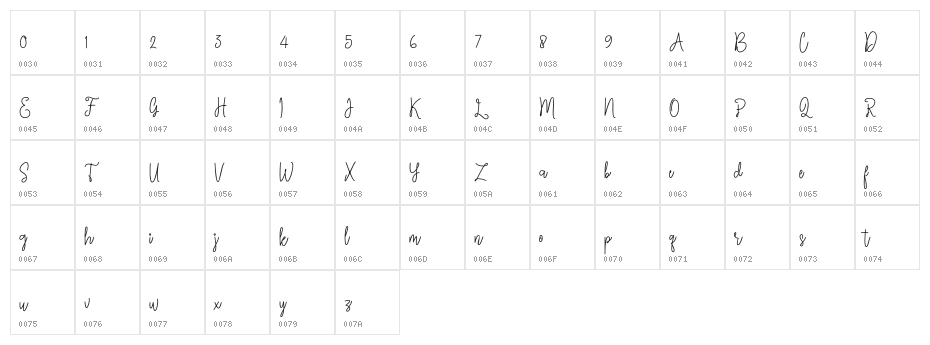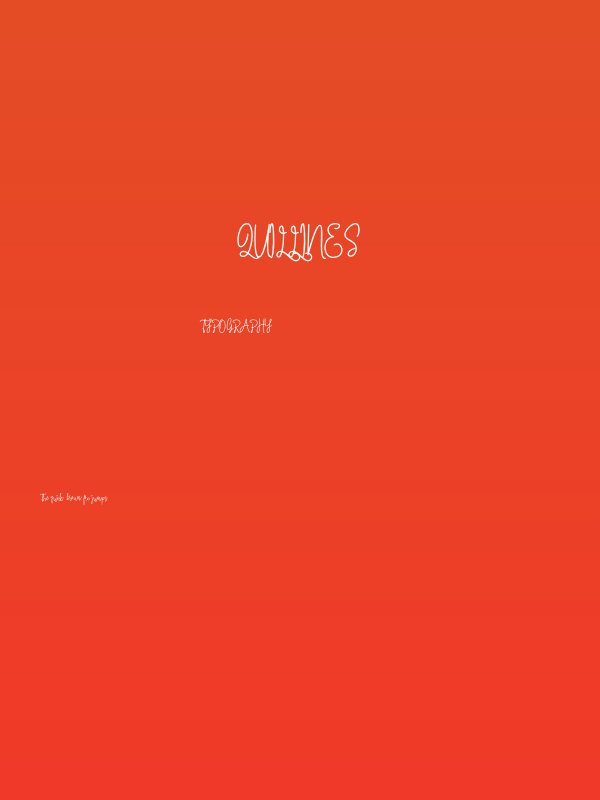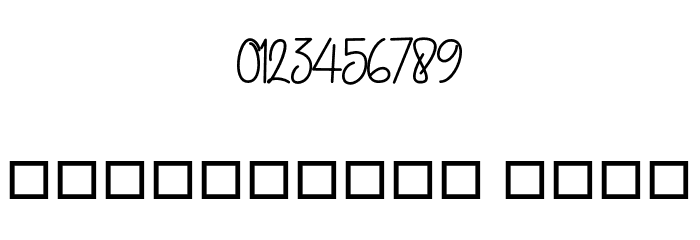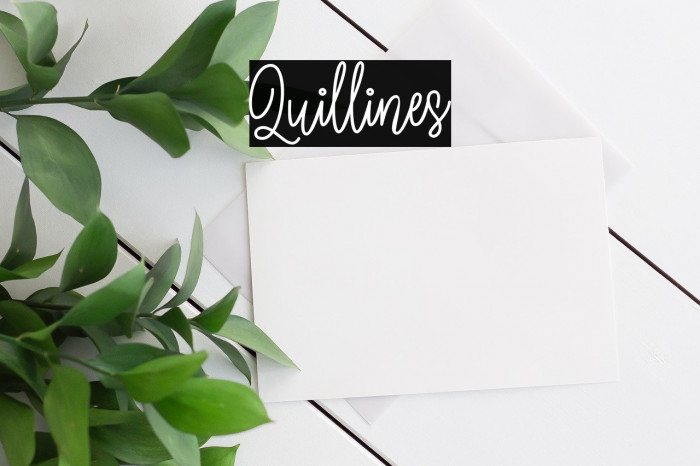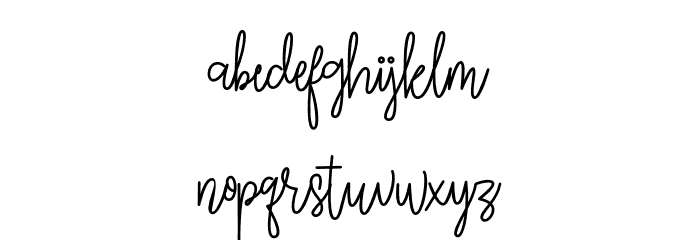
Quillines Font
Quillines Description
This font features a playful and elegant script style, characterized by its fluid, cursive letterforms. The uppercase letters are tall and slightly slanted, with decorative loops and flourishes that add a whimsical touch. The lowercase letters maintain a consistent flow, enhancing readability while retaining a hand-drawn aesthetic. The numerals are styled to match the overall script theme, offering a cohesive look across all characters. This font exudes a sense of creativity and charm, making it suitable for a variety of design projects.